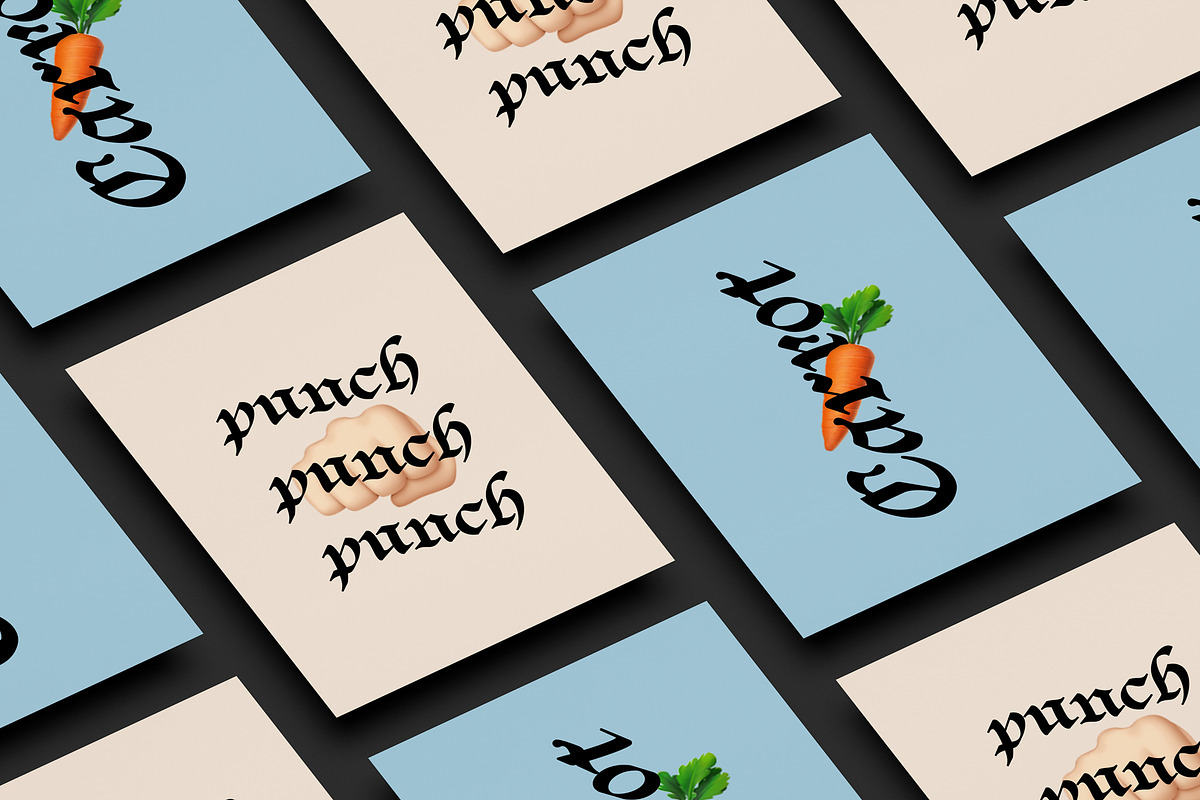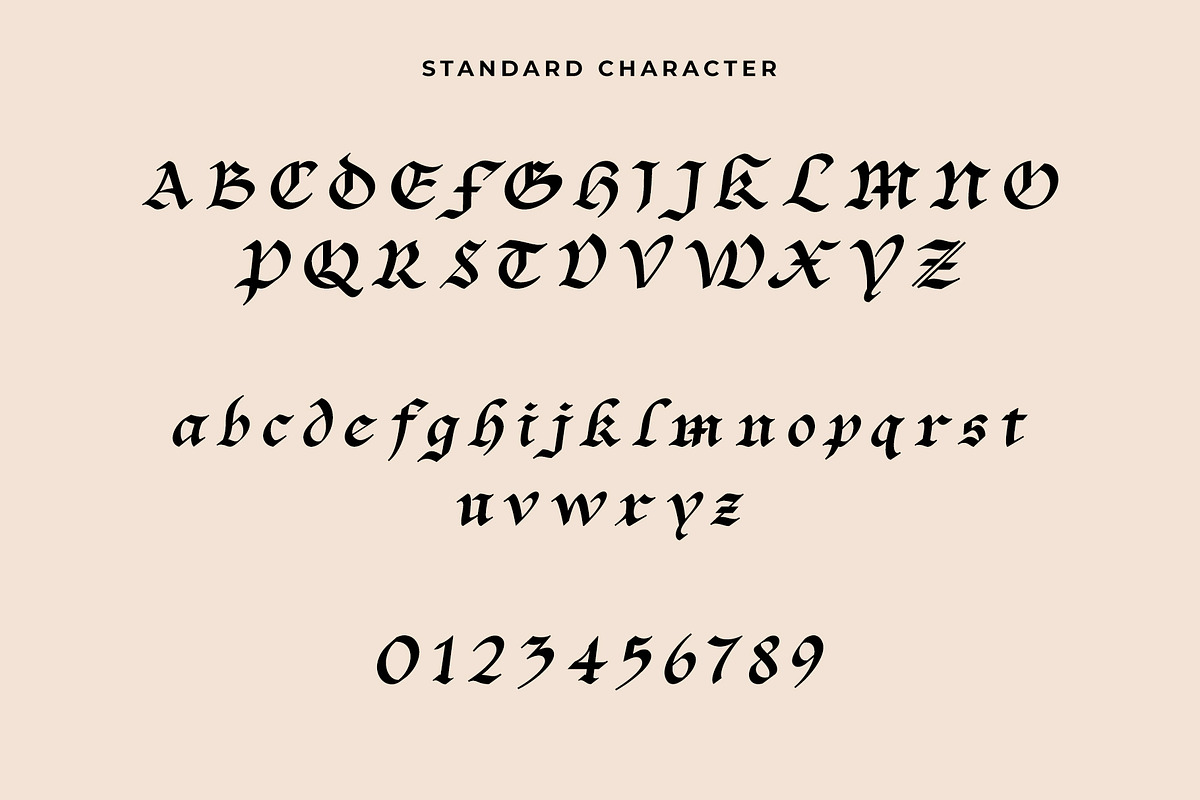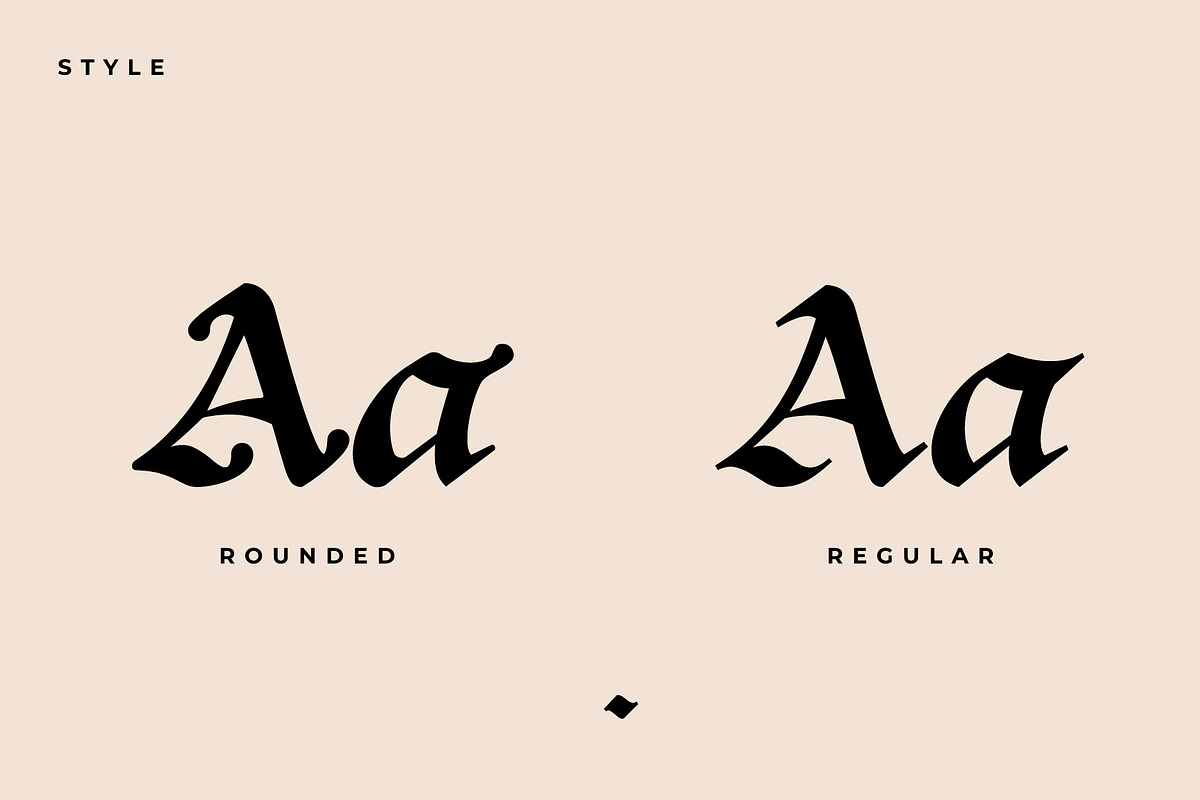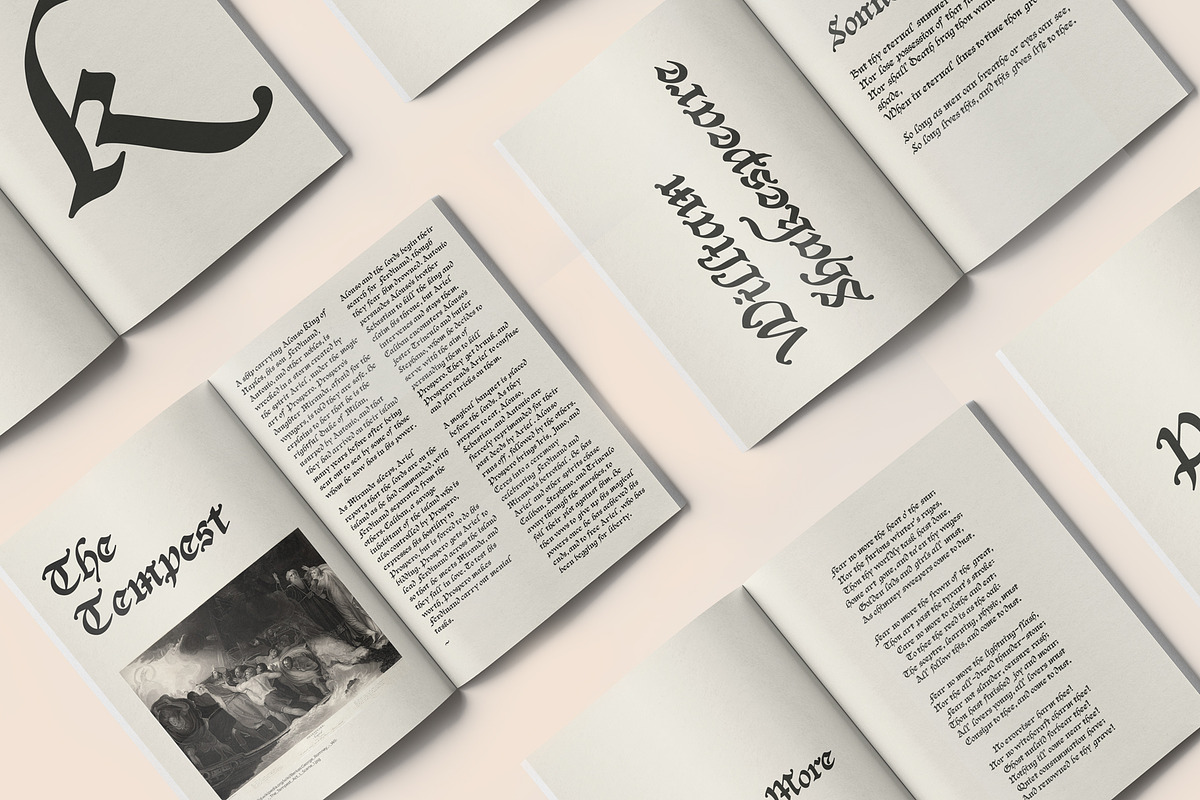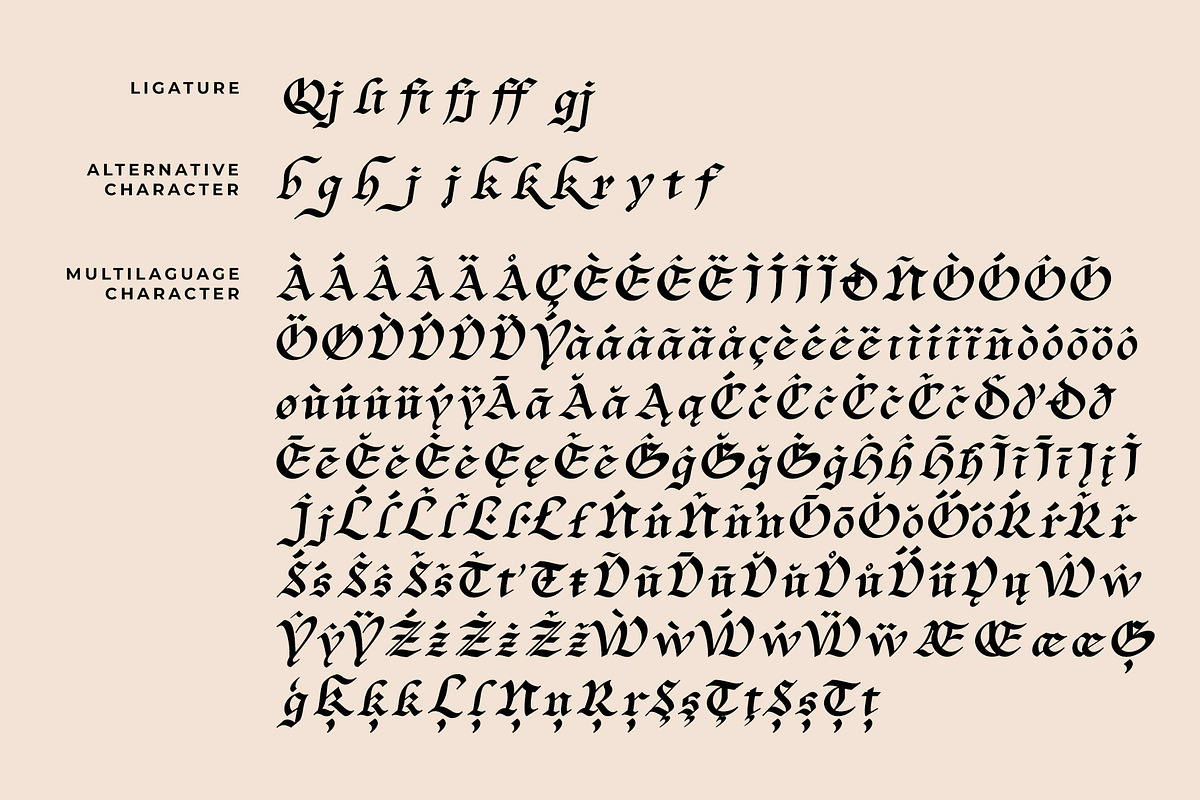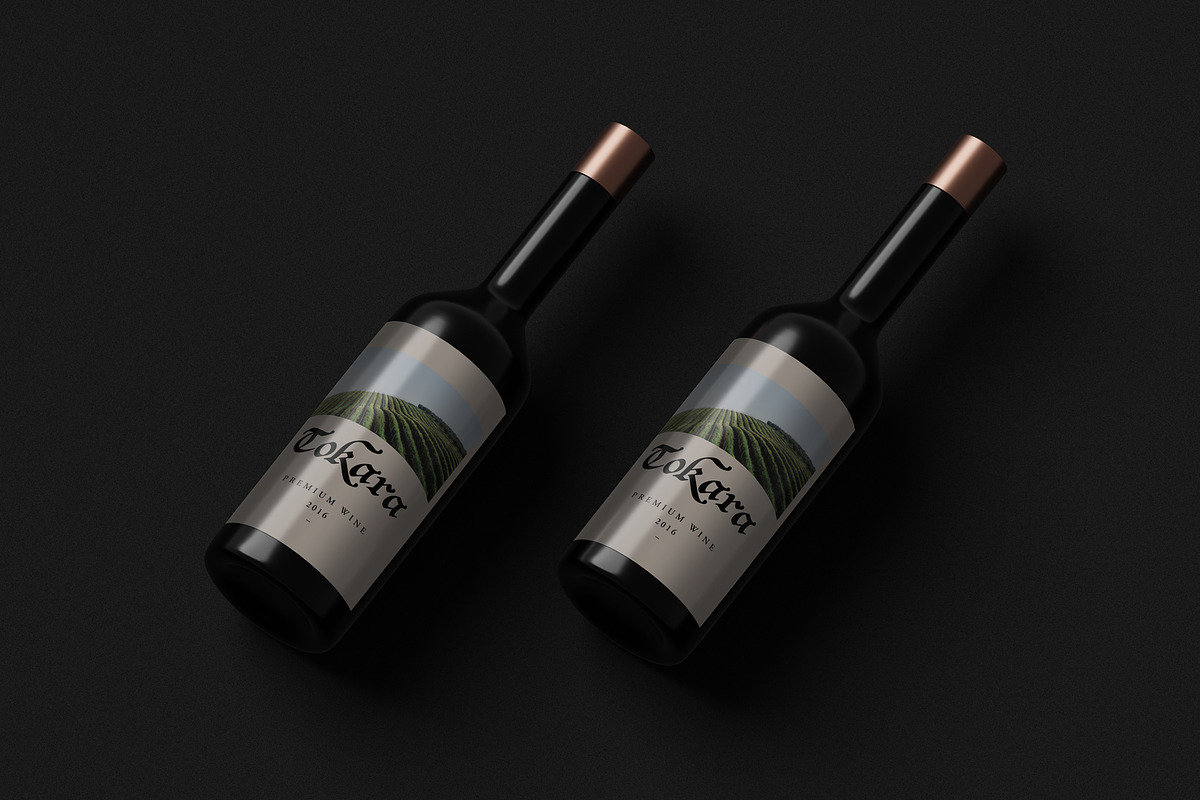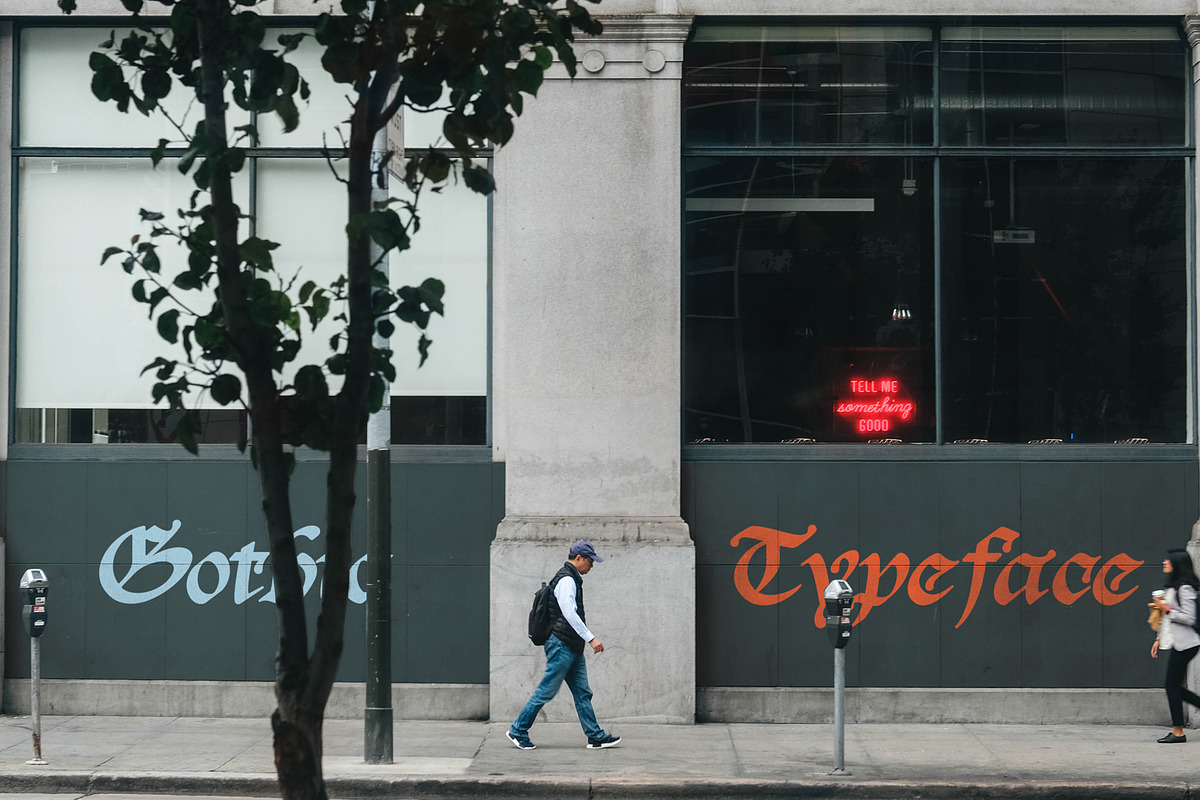
Baliem Typeface
Baliem typeface is a blackletter font that consists of two styles : regular and rounded.
This font is good for logo design, branding, apparel, books, posters and other design needs
in addition there are some interesting features in this font such as ligature that makes two characters look good, alternative characters that enhance your design and unique character font style.
Alternative character
multi language support
- Baliem Regular
- Baliem Rounded